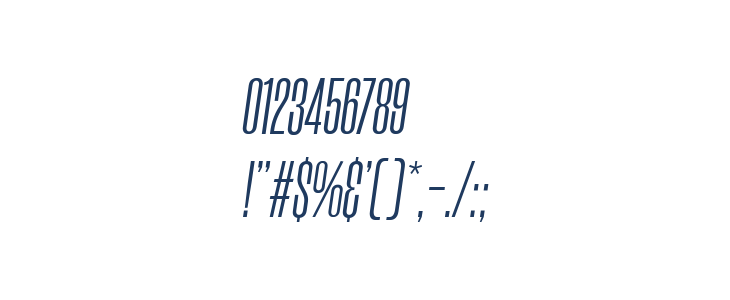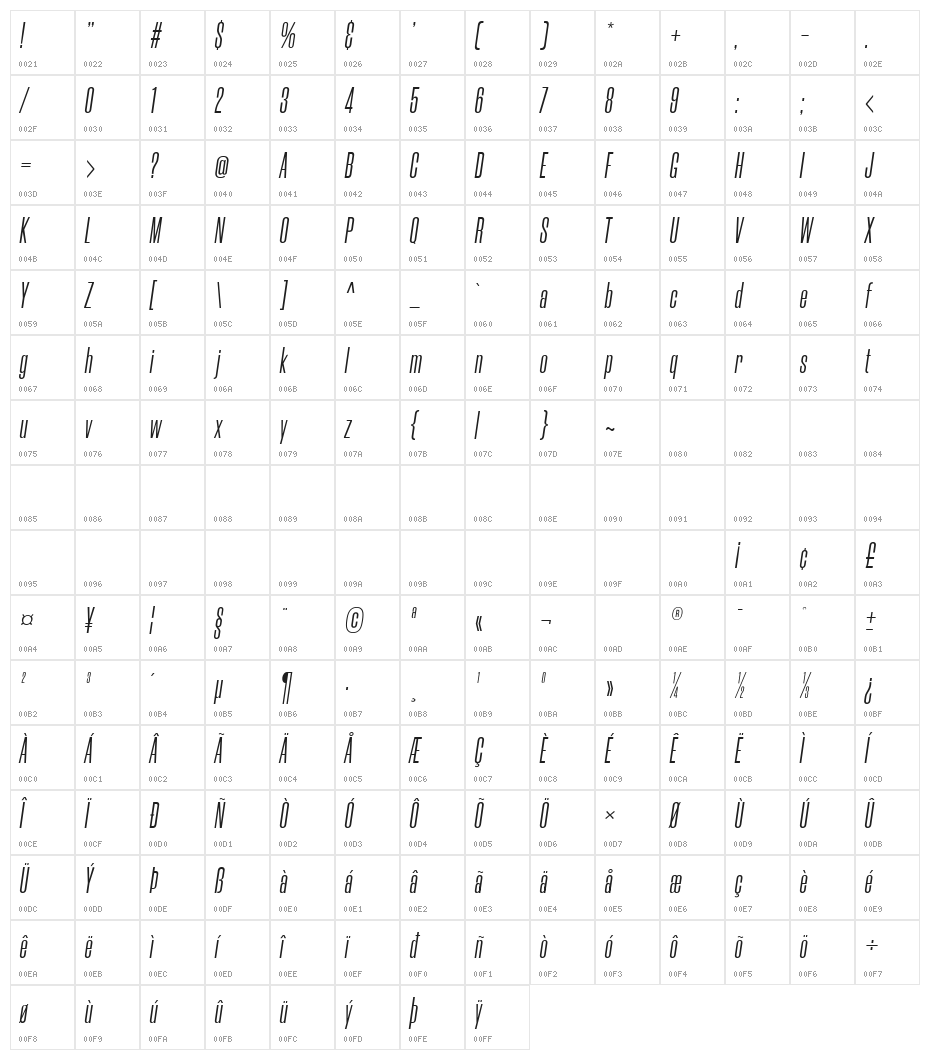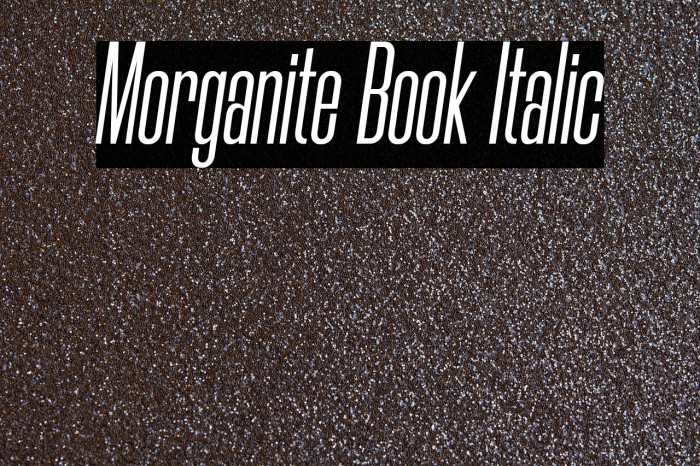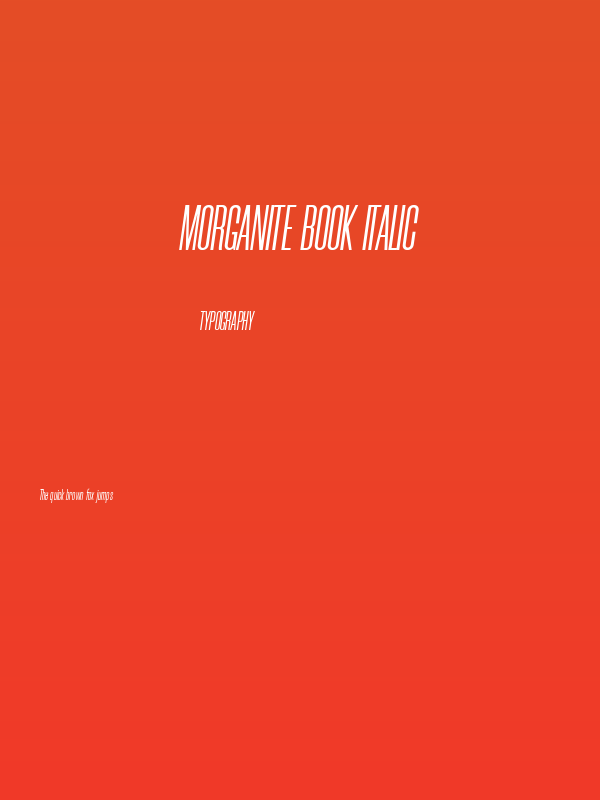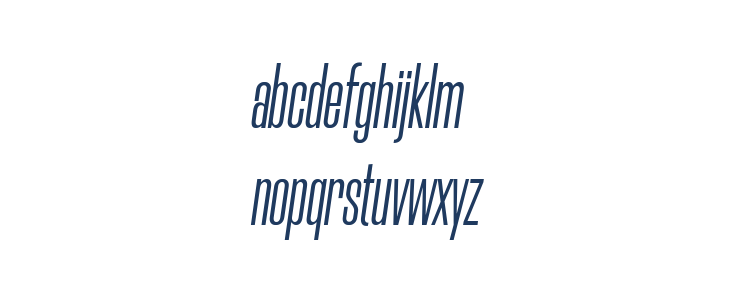
Morganite Book Italic Font
Morganite Book Italic Description
This font features a sleek, modern design with a distinct italic slant, giving it a dynamic and forward-moving appearance. The characters are tall and narrow, contributing to a condensed look that maximizes vertical space. The strokes are consistent in width, providing a uniform and clean aesthetic. The uppercase letters are bold and commanding, while the lowercase letters maintain a cohesive flow. Numbers and special characters are designed with the same attention to detail, ensuring readability and style. This font is ideal for projects that require a contemporary and professional touch.
Use CaseHeadlines, Logos, Digital media
Proposed ProjectsIdeal for branding, advertising, editorial design, and digital media where a modern and professional look is desired.